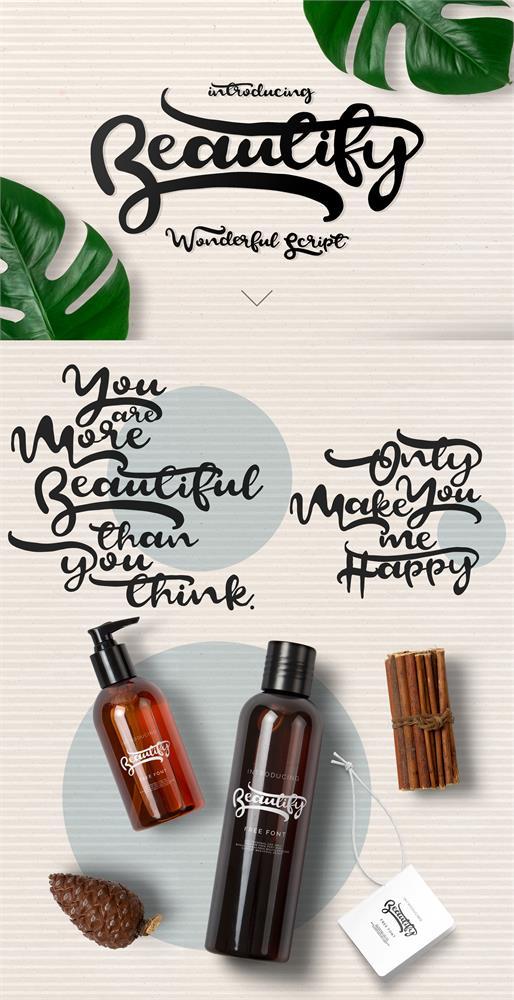
Free Beautify Script Font
Free beautify script font for graphic designers that need to present their work in a professional way. Font Space has created this amazing and beautiful free font. Easily amaze your audience with this fancy font and make your graphic designs pop up from the crowd.